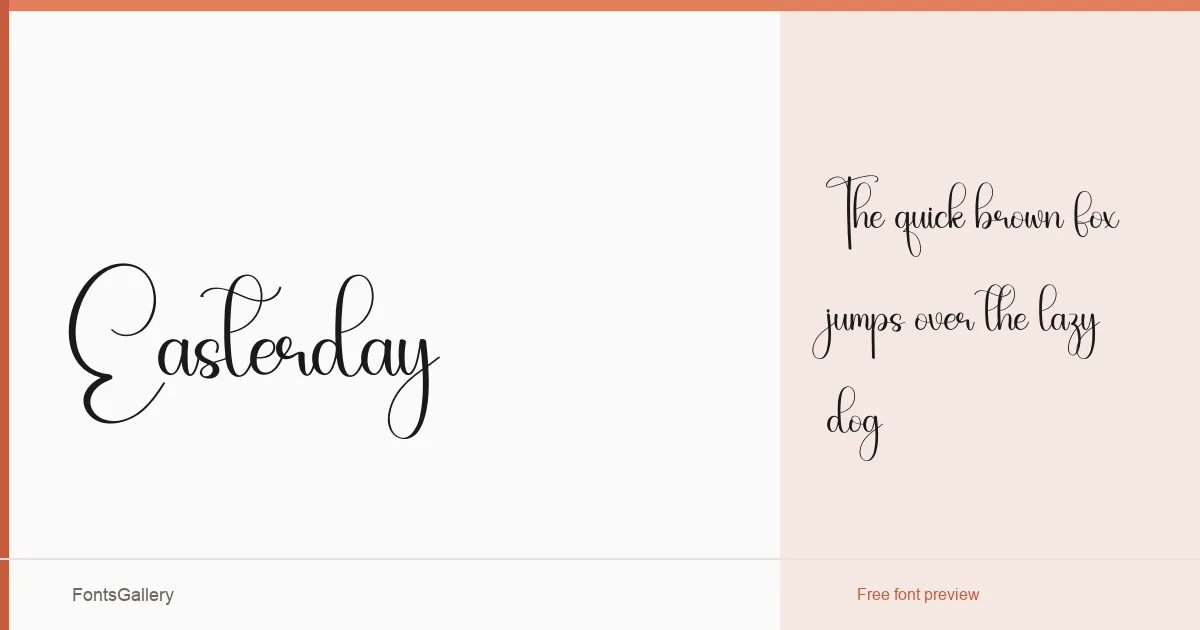
About Easterday Font
Easterday is an elegant script typeface from Scratchones Creative, crafted to bring a sense of romance and timeless sophistication to any design. Its flowing, classic character makes it an immediately striking choice for projects that demand a refined and heartfelt aesthetic. The result is a typeface that feels both graceful and deeply personal.
Easterday features the sweeping curves and fluid strokes characteristic of classic romantic script lettering, evoking a sense of tradition and elegance. Each letterform is designed with careful attention to graceful connections and expressive detail, lending the typeface a handcrafted, intimate quality. The overall composition balances classic restraint with romantic warmth, making every character feel considered and polished.
Easterday shines in applications such as wedding stationery, invitation cards, greeting cards, certificates, and logo design where an elegant, romantic tone is essential. Its expressive script style pairs beautifully with the clean simplicity of Helvetica for a modern contrast, or alongside Aresink for a complementary sophisticated aesthetic. Together, these combinations allow Easterday to serve as a stunning display element across a wide range of premium design projects.